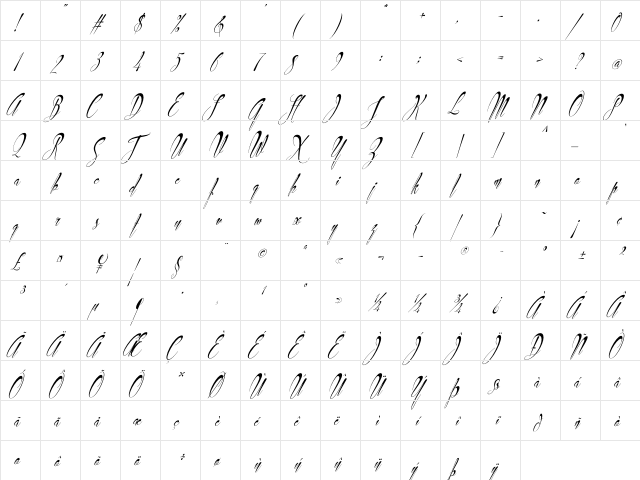
Philoshopy Italic
Design Context for Philoshopy Typeface
Philoshopy is a composed and adaptable typeface that performs quietly and consistently across a wide range of design contexts. The slanted form adds forward momentum and visual energy.
Pro Tip: Use Philoshopy for emphasis, pull quotes, and subheadings where its slanted energy can add rhythm to the layout.